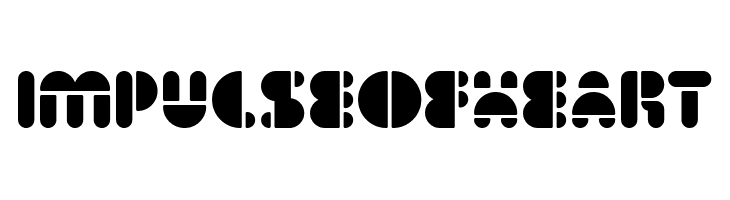
A bold, geometric font with a futuristic and industrial design.
A bold, geometric stencil-style font with a modern, futuristic look.
A bold, geometric font with a futuristic and abstract design.
A bold, geometric font with a futuristic and decorative style.
A bold, modern stencil-style font with rounded shapes and cutouts.
A bold, geometric stencil-style font with rounded shapes and cutouts.